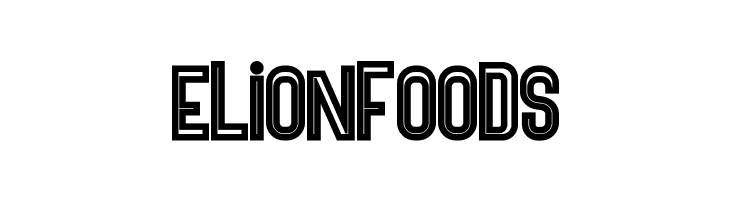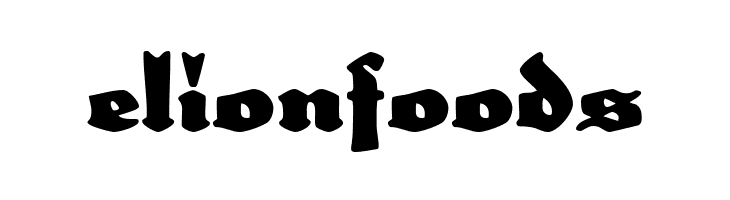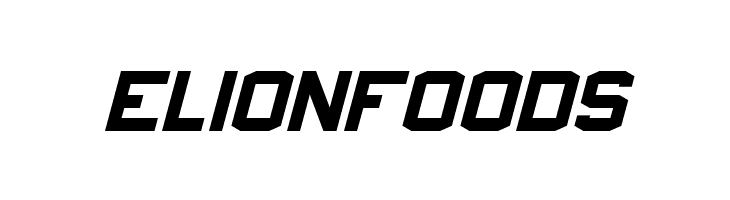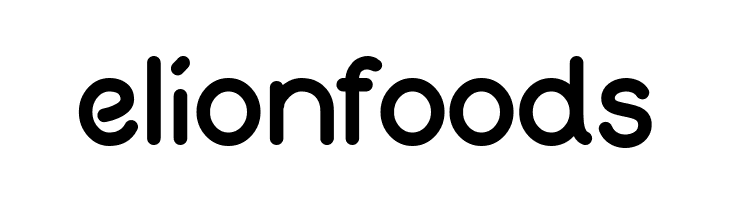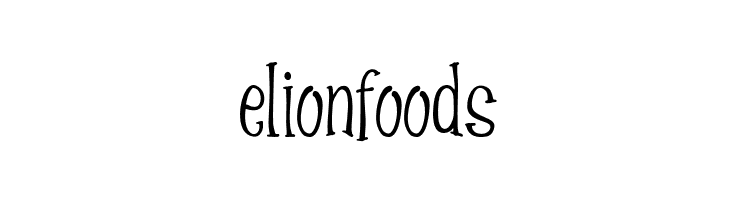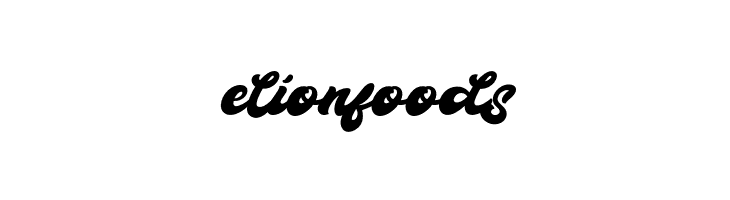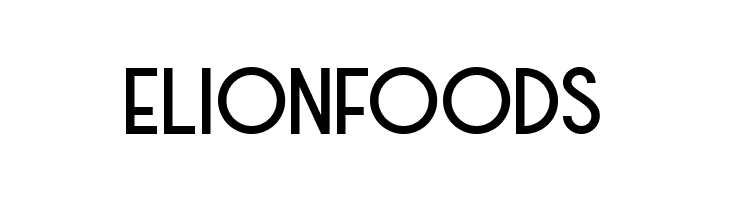
( Parker Creative - Alan Parker - fontbundles.net/parker-creative )
A modern, rounded font with partial inline detailing for a sleek and sophisticated look.
( Peter Olexa - www.dealjumbo.com )
A bold, inline font with a geometric and decorative style.
( Peter Wiegel - www.peter-wiegel.de/ )
A bold, dramatic Blackletter font with ornate, angular lines.
( Pixel Sagas - Neale and Shayna Davidson - www.pixelsagas.com )
A bold, italicized font with a modern, dynamic style.
( Pixeluigi - Luis G. Galván - www.facebook.com/memohd25 )
A playful, rounded font with bold, smooth curves and uniform stroke width.
( Posterizer KG - Lazar Dimitrijevic - www.myfonts.com/foundry/PosterizerKG/#return_to_item_11 )
A classic calligraphic font with sharp, angular strokes and a traditional Cyrillic style.
( Qwerks - Joanne Taylor - graphicriver.net/user/joiaco )
A playful, rounded font with a bold and modern design.
( Spizzella Fancy )
A playful, hand-drawn serif font with whimsical and artistic characteristics.
( Thirtypath - www.thirtypath.com )
A bold, expressive script font with elegant, flowing strokes.
( Twicolabs Fontdation - Fahrizal Tawakkal - fontdation.com )
A geometric, Art Deco-inspired font with bold, clean lines and symmetrical shapes.